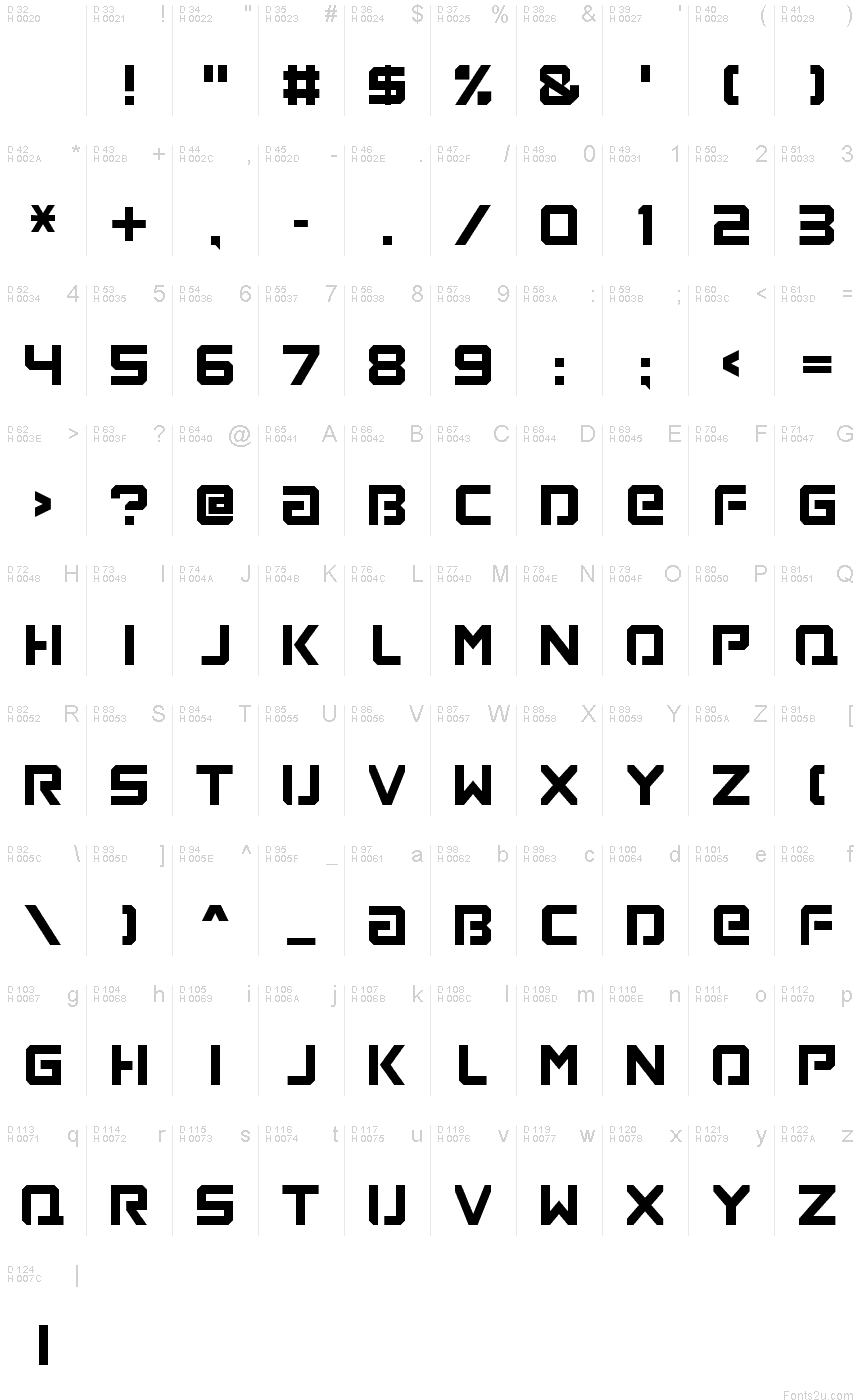
Loaded by Geith Mankey of Filter9 is a free futuristic display font with broad, black letterforms and sharply cut geometric joints. Its squared arches, deep internal notches, and clipped corners give the lettering the hard-edged look of custom machine panels.
Designers working in electronic music, gaming, and science-fiction entertainment will find its industrial silhouette especially useful. It suits album covers, game title screens, event posters, and apparel graphics built around technology or machinery. Generous openings keep the dense forms sharply defined. Across these uses, the recurring angled cuts can echo circuit paths, armor plates, or architectural framework.